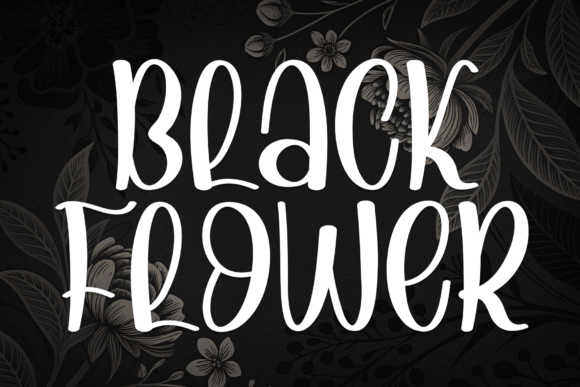
- ✅ Sweet and Friendly Vibes: This font exudes warmth and approachability, making it perfect for projects that require a personal touch.
- ✨ Versatility: Black Flower Font shines in various design applications, from wedding invitations to social media graphics.
- 🎉 Playful Edge: This font adds a dash of fun to any design, making it ideal for creative cards, party invitations, or any project that needs a bit of whimsy.
While Black Flower Font is a delightful addition to my design toolkit, it’s not without its quirks:
- 🤔 Limited Use in Body Text: Due to its decorative nature, Black Flower Font is best suited for headlines, titles, or short paragraphs. For longer body text, it’s best to pair it with a more readable font.
- ⚠️ Occasional Kerning Issues: As with any font, you might encounter some kerning issues, especially when using it in combination with other fonts. Be sure to adjust the kerning to ensure a smooth reading experience.
The Story Behind Black Flower Font
Black Flower Font was designed with the intention of creating a charming, handwritten display font that captures the essence of friendly and approachable design. The designer aimed to craft a font that would add a touch of whimsy and fun to various design projects, from wedding invitations to social media graphics. With its sweet and friendly vibes, Black Flower Font has become a popular choice among designers and crafters.
| Font Name | Black Flower Font |
| What type of projects is Black Flower Font best suited for? | Black Flower Font is ideal for projects that require a friendly and playful touch, such as wedding invitations, creative cards, and social media graphics. |
| Can I use Black Flower Font for body text? | While Black Flower Font is a beautiful font, it’s best suited for headlines, titles, or short paragraphs. For longer body text, it’s recommended to pair it with a more readable font. |
| Is Black Flower Font available in different weights or styles? | Black Flower Font comes in a single weight, but it features OpenType features, such as stylistic alternates, that allow for some variation in the font’s appearance. |